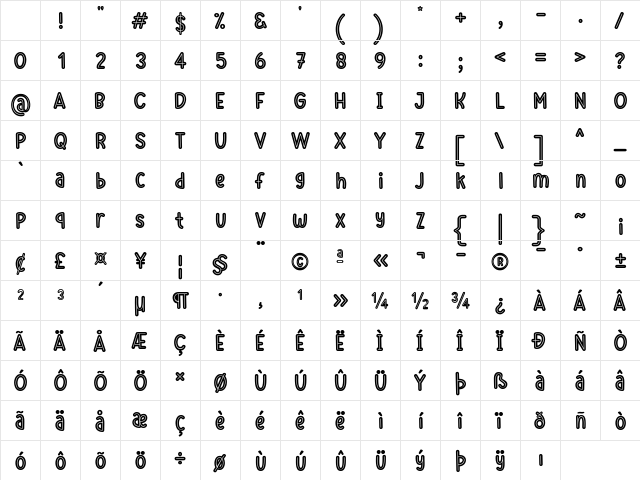
Complete Best School Outline Regular glyph index. Displaying only characters natively supported by Best School Outline Regular font.
Best School Outline is built around its visual character rather than neutral utility - its distinctive forms are designed to make an impression at display sizes.
Font Pairing: Pair with a clean neutral sans-serif for body copy to let Best School Outline's character lead without overwhelming the composition.
Pro Tip: Use Best School Outline exclusively at display sizes - it was designed to be seen, not read at length. Let a neutral companion handle body copy.